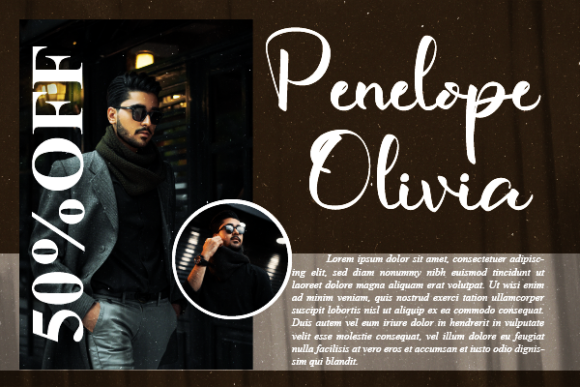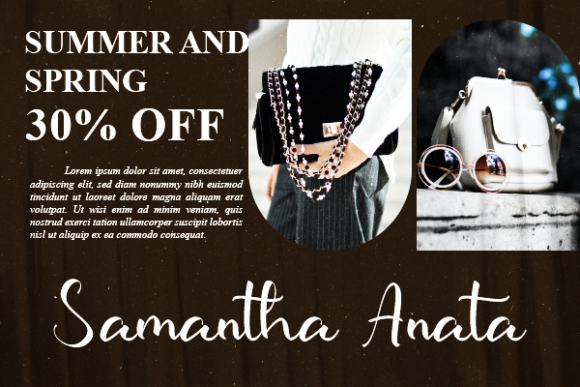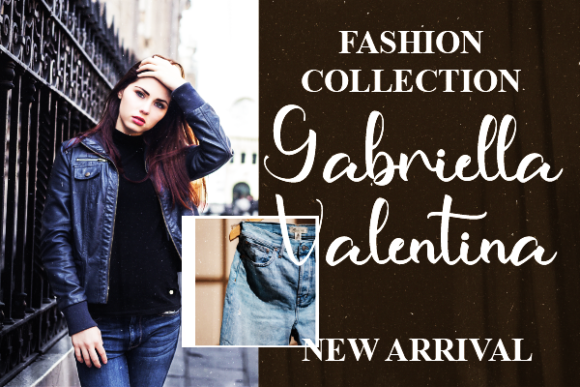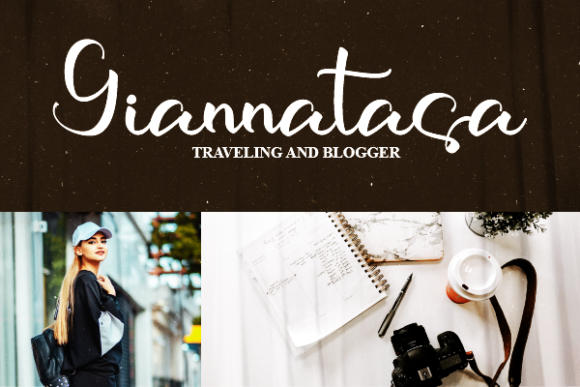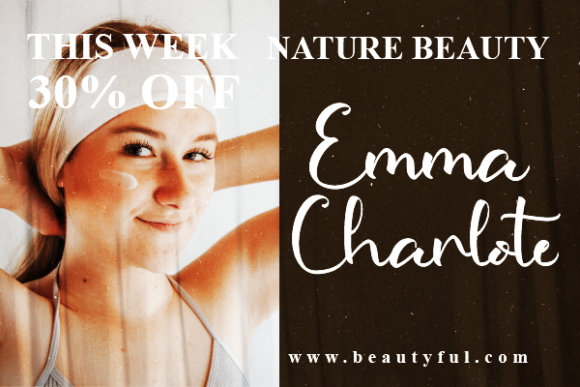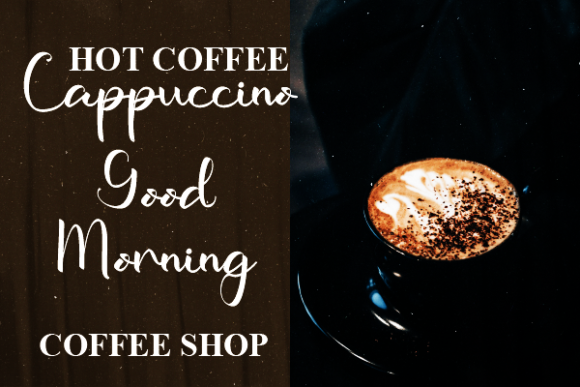
Discover the Charm of Frances Dream Font
I’ll never forget the moment I stumbled upon Frances Dream Font while working on a project for a client’s wedding invitation. I had been searching for the perfect handwritten font for hours, and just when I was about to give up, I found Frances Dream. Its casual, adaptable style instantly caught my eye, and I knew I had found the one. In this article, I’ll share my love for this beautiful font, its features, and how to make the most of it in your designs.
A Personal Review of Frances Dream Font
- ✨ Distinct and well-balanced letters that make it a masterpiece
- ✅ Incredibly versatile style, perfect for various design projects
- 💫 Beautifully crafted to evoke a sense of elegance and sophistication
- 👍 Easy to read, even in smaller sizes
While Frances Dream Font is a stunning addition to any design project, there are a few things to keep in mind:
- ⚠️ Some letters may appear a bit narrow, so be mindful of spacing
- 🤔 Limited availability of language support, mainly suitable for English and some European languages
The Story Behind Frances Dream Font
Frances Dream Font was created with the intention of crafting a beautiful, everyday font that would be both elegant and approachable. The designer aimed to create a font that would be versatile enough to use in various design projects, from wedding invitations to branding materials. With its distinct and well-balanced letters, Frances Dream Font has become a popular choice among designers and crafters.
Q: What type of projects is Frances Dream Font best suited for?
A: Frances Dream Font is perfect for a wide range of design projects, including wedding invitations, branding materials, social media graphics, and more.
Q: Is Frances Dream Font suitable for body text?
A: While Frances Dream Font is beautiful, it’s recommended to use it for headlines or titles rather than body text, as it may be a bit challenging to read in smaller sizes.